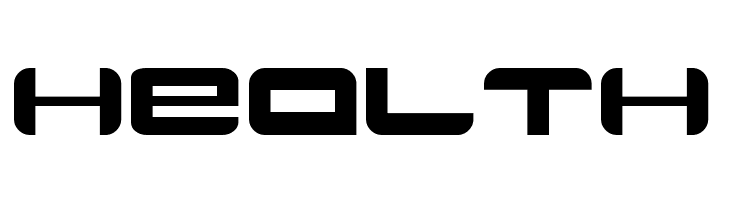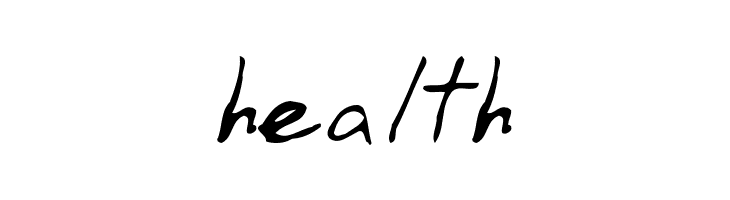
AtomicBomb Font
A bold, blocky font with a modern, industrial aesthetic.
BreastBomb Font
A luxurious script font with high contrast and elegant flourishes.
CherryBomb Font
A bold, geometric font with a modern and edgy style.
MailBomb Font
A bold, distressed font with a grungy, eroded appearance.
NeutronBomb Font
A bold, slanted font with a futuristic and dynamic style.
HydrogenBomb Font
A bold, slanted font with thick strokes and a dynamic, modern style.
FireBomb Font
A bold, flame-inspired font with jagged, dynamic edges.
ObcessedBomb Font
BombHaus Digital Foundry
A bold, futuristic font with geometric, blocky characters and rounded edges.
StinkBomb Font
BombHaus Digital Foundry
A lively and expressive handwritten font with fluid strokes.
TickingBomb Font
BombHaus Digital Foundry
A futuristic, geometric font with rounded edges and consistent stroke thickness.